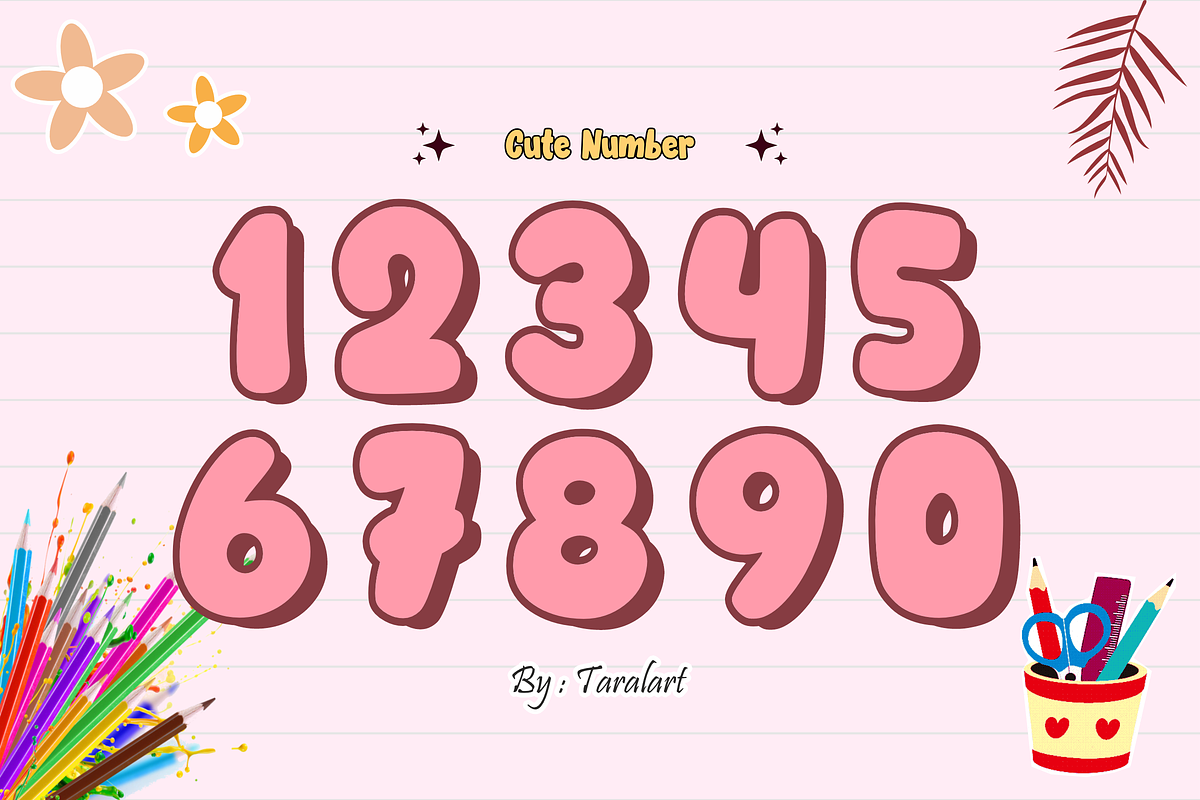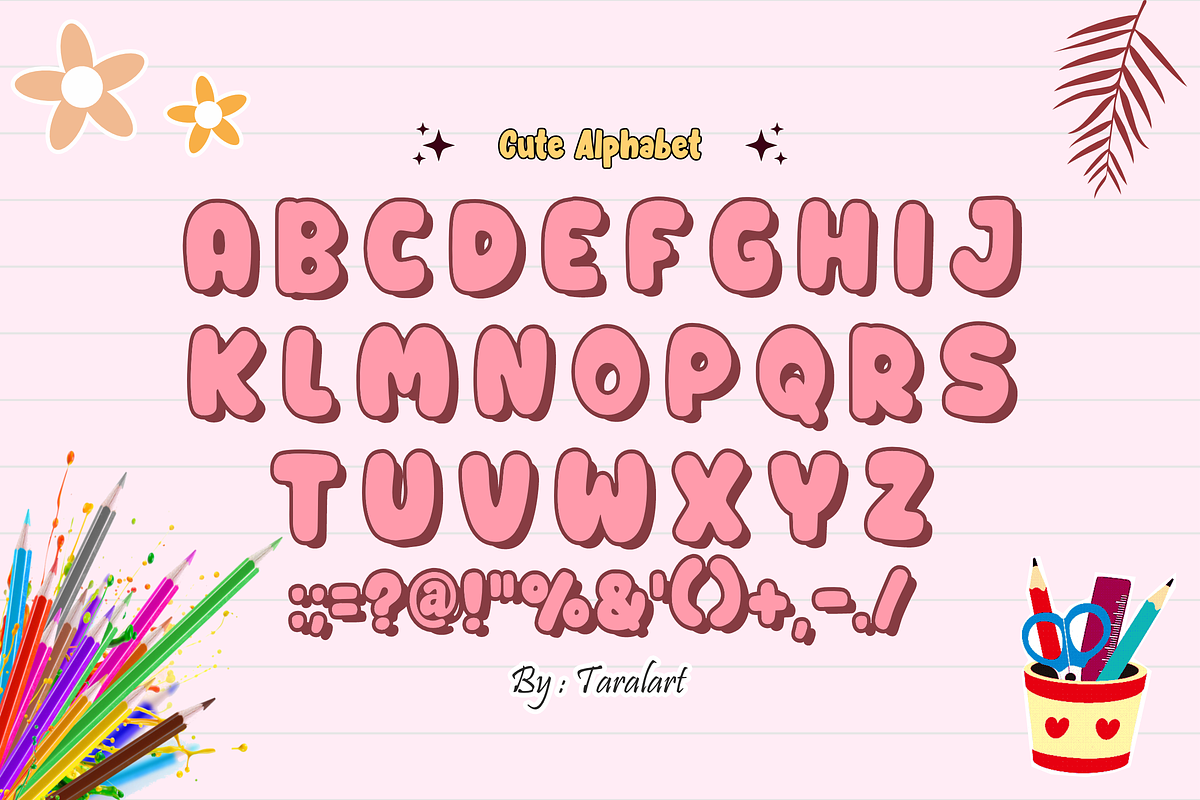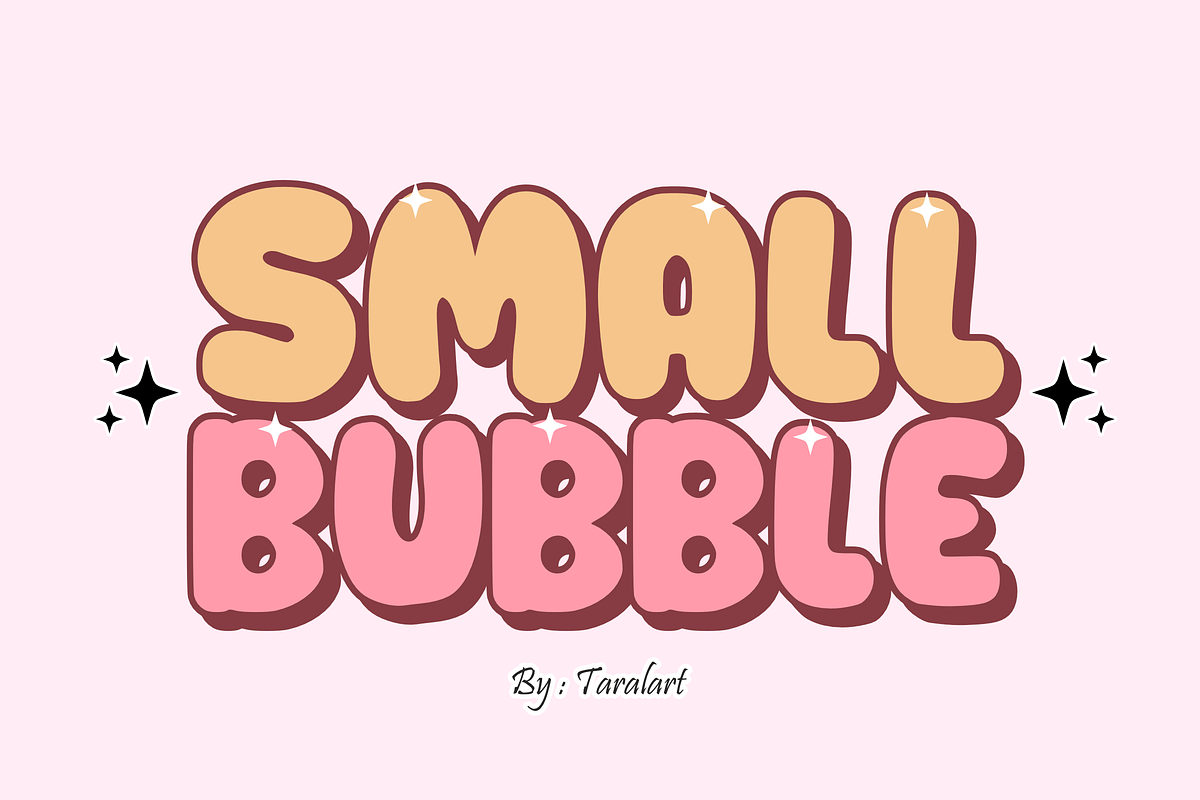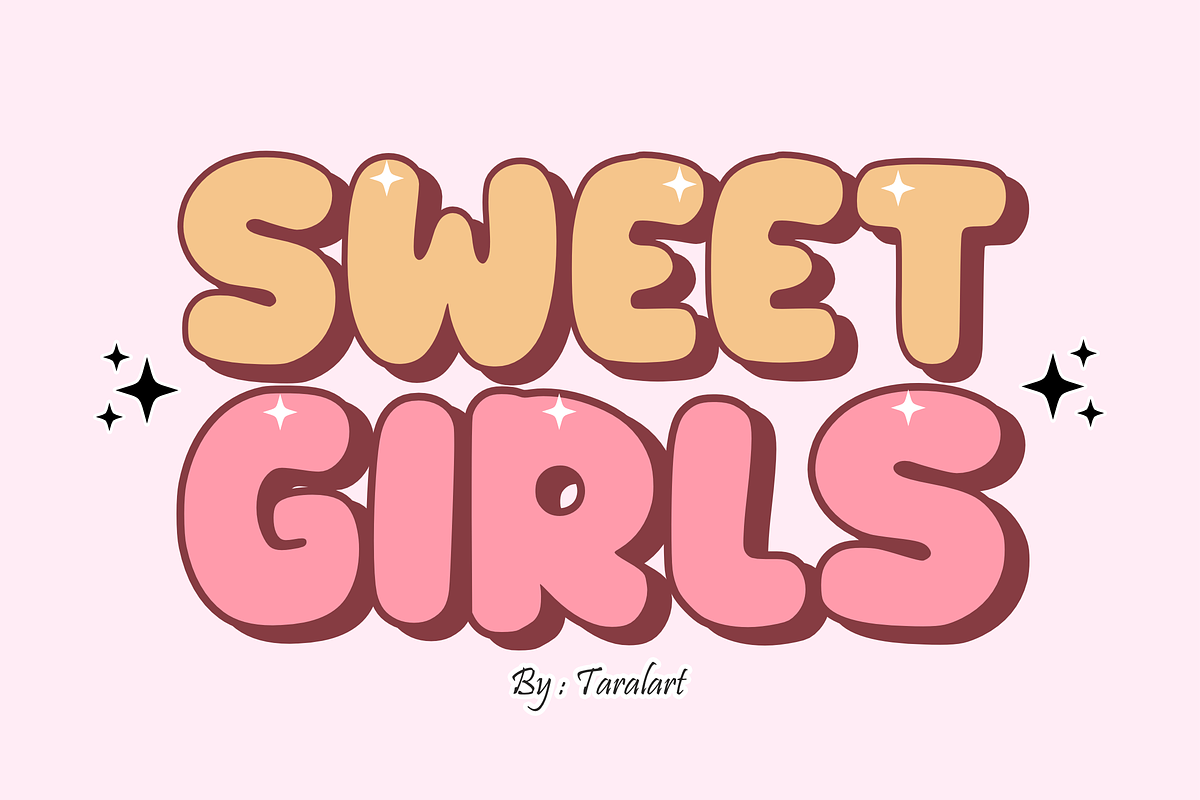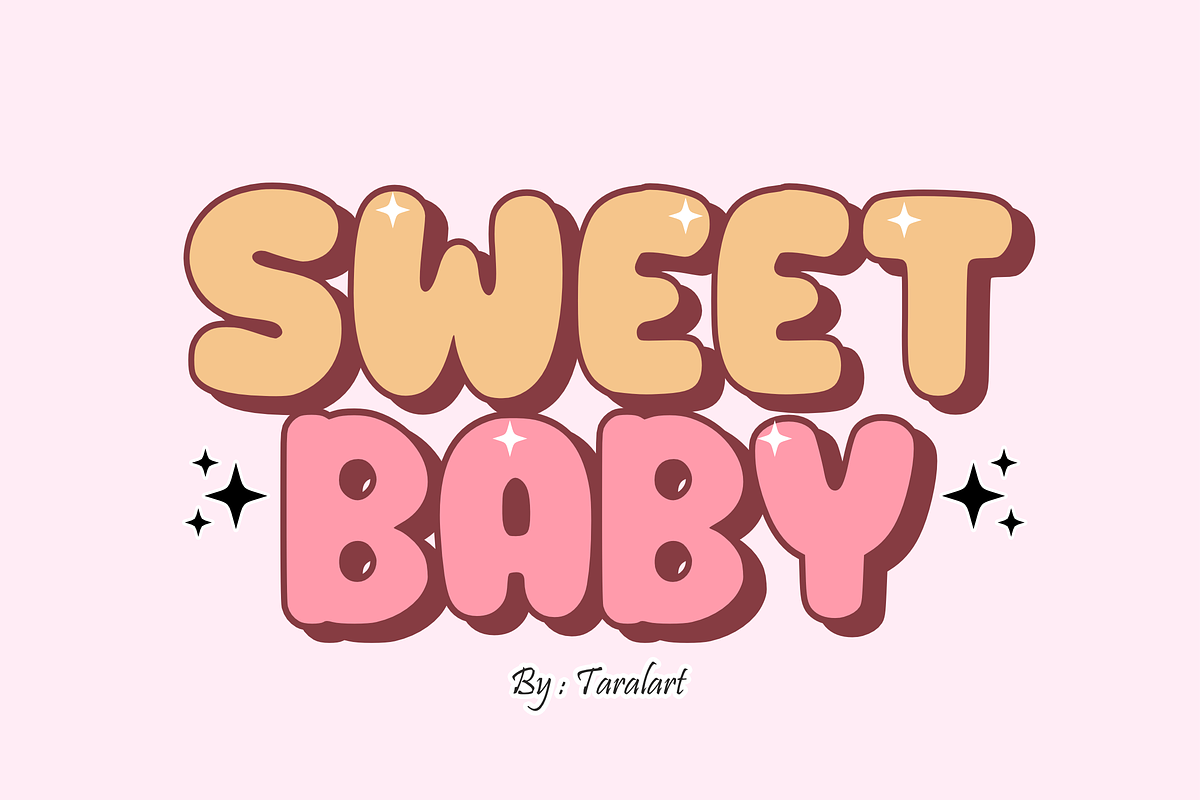
Small Bubble - Retro Groovy Font
Inject a dose of pure nostalgia into your designs with Small Bubble! This ultra-bold, plump display font captures the quintessential 70s groovy aesthetic, complete with soft rounded edges and built-in glossy highlights that give each letter a fun, shiny, three-dimensional look. It’s the ultimate choice for creating trendy stickers, retro merchandise, and playful headlines that instantly grab attention.
Perfect for vintage branding, nostalgic apparel, and modern crafting, Small Bubble masterfully pairs a whimsical bubble-gum vibe with excellent legibility. It is highly versatile, exceptionally smooth for cutting machines, and fully optimized for flawless performance across premium digital software and professional print setups.
All-Caps Character Set (Chunky uppercase letters with glossy highlight details)
Numbers & Basic Punctuation (Essential, simple symbols included)
Retro & Groovy Sublimation Designs (T-shirts, tote bags, mugs) 👕
Custom Die-Cut Stickers, Fun Decals, & Planner Elements 🎯
Cricut, Silhouette, & DIY Creative Crafting Projects ✂️
Y2K & 70s Vintage Nostalgic Branding & Playful Logos ⚡
Kids Birthday Party Invitations, Trendy Posters, & Packaging 🎈
High-Impact YouTube Thumbnails, Reel Covers, & Social Media Graphics ✨